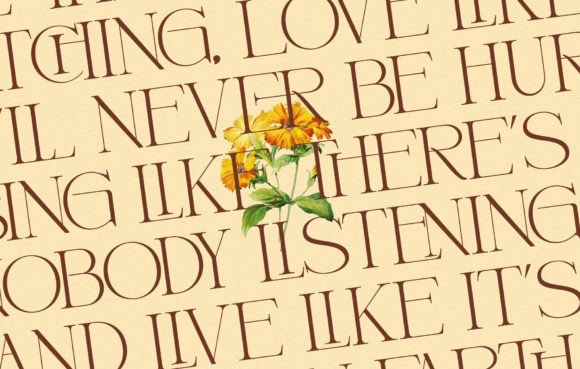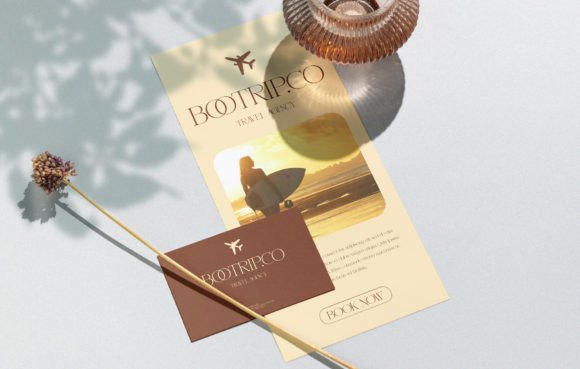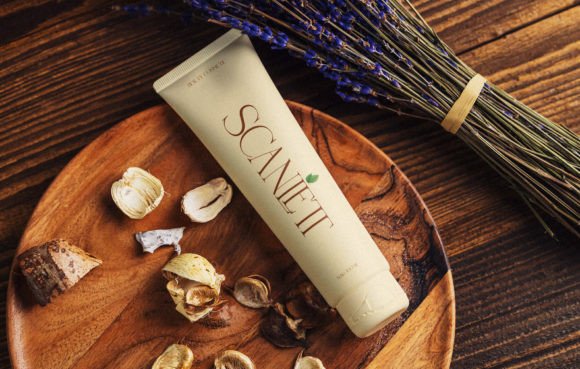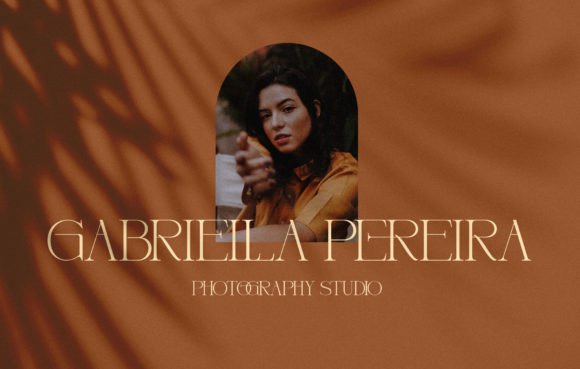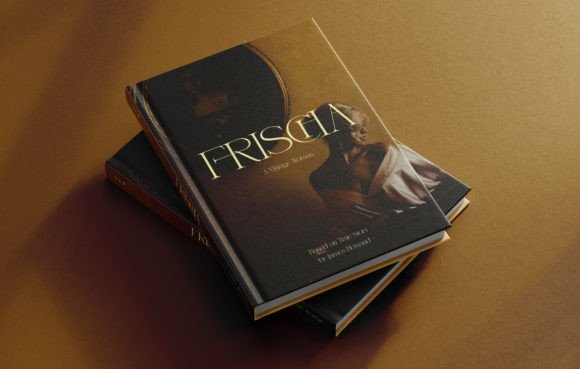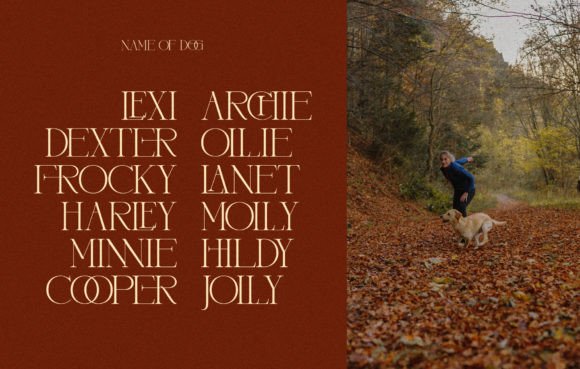
Introduction to Frageell Font
Have you ever stared at a blank canvas, waiting for the perfect font to bring your creative vision to life? I know I have. As a designer, I’ve spent countless hours scouring through font libraries, searching for that one special typeface that will elevate my project from ordinary to extraordinary. And then, I discovered Frageell Font – a modern serif ligature font revival that has become my go-to choice for all sorts of creative projects.
What sets Frageell Font apart is its versatility and high quality. Whether you’re designing a vintage-inspired logo, a poster for a music festival, or a website headline that demands attention, this font has got you covered. With its sleek, sophisticated design and transparent background, it’s the perfect design resource for any creative project.
Key Features of Frageell Font
- High-quality font designed for creative projects, ideal for use in logos, branding, and digital art.
- Transparent background, allowing for easy customization and layering in design projects.
- Unique, handcrafted design elements and flourishes that add a touch of personality to any creative project.
Honest Review: Frageell Font
I recently had the chance to work with the Frageell Font, and I must say it’s a fantastic addition to my design arsenal. One of the standout features of this font is its high quality and versatility, making it perfect for a wide range of creative projects.
What works well: ✨ The font’s sleek and modern design makes it an excellent choice for projects that require a touch of sophistication. The transparent background option allows for seamless integration into various design elements. Additionally, the free download is a huge plus, making it accessible to designers of all levels.
However, there are some limitations to consider: ⚠️ The font’s limited character set might be a concern for designers working on projects that require a wide range of characters. Additionally, the font’s compatibility with certain software may vary.
Overall, I’m impressed with the Frageell Font and would highly recommend it as a design resource. Its high quality and versatility make it a valuable addition to any designer’s toolkit.
The Frageell Font is ideal for creative projects such as invitations, business cards, and social media graphics. Its transparent background and high quality make it a great choice for any design project where you want to add a touch of sophistication.